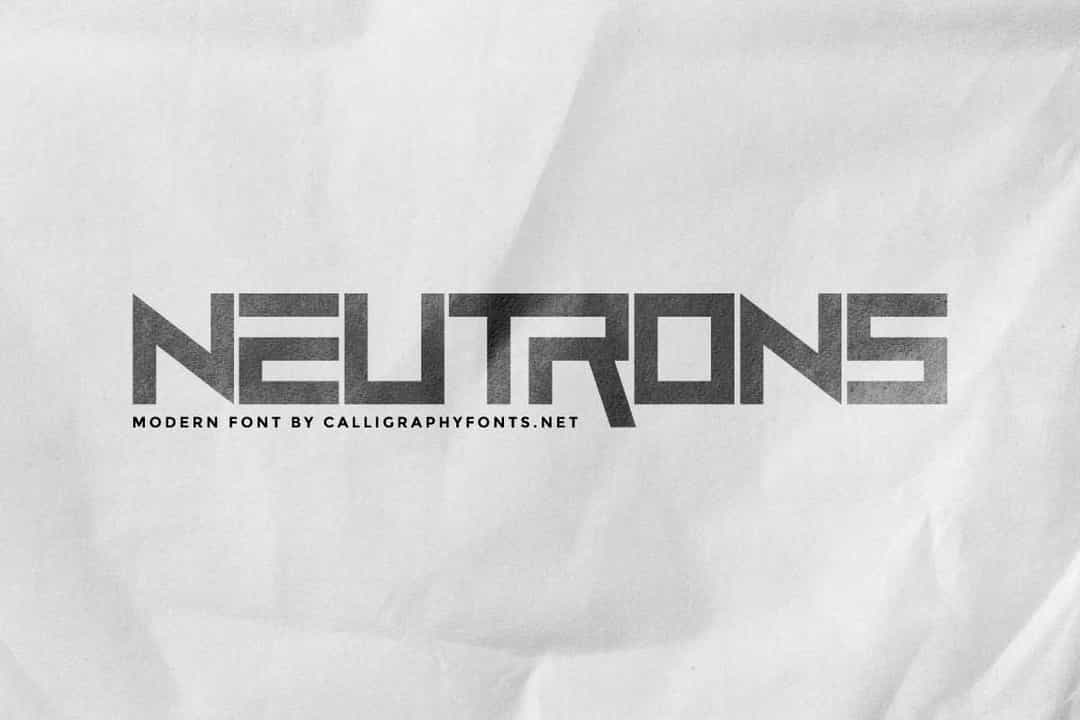
Neutrons Display Font can be described as a contemporary Sans Serif Font family with modern aesthetics and masculine, strong characteristics that is ideal for logo, brandings, headlines and signage etc. With its distinctive “tr” ligatures creating an eye-catching font. Neutrons is truly strikingly distinct.